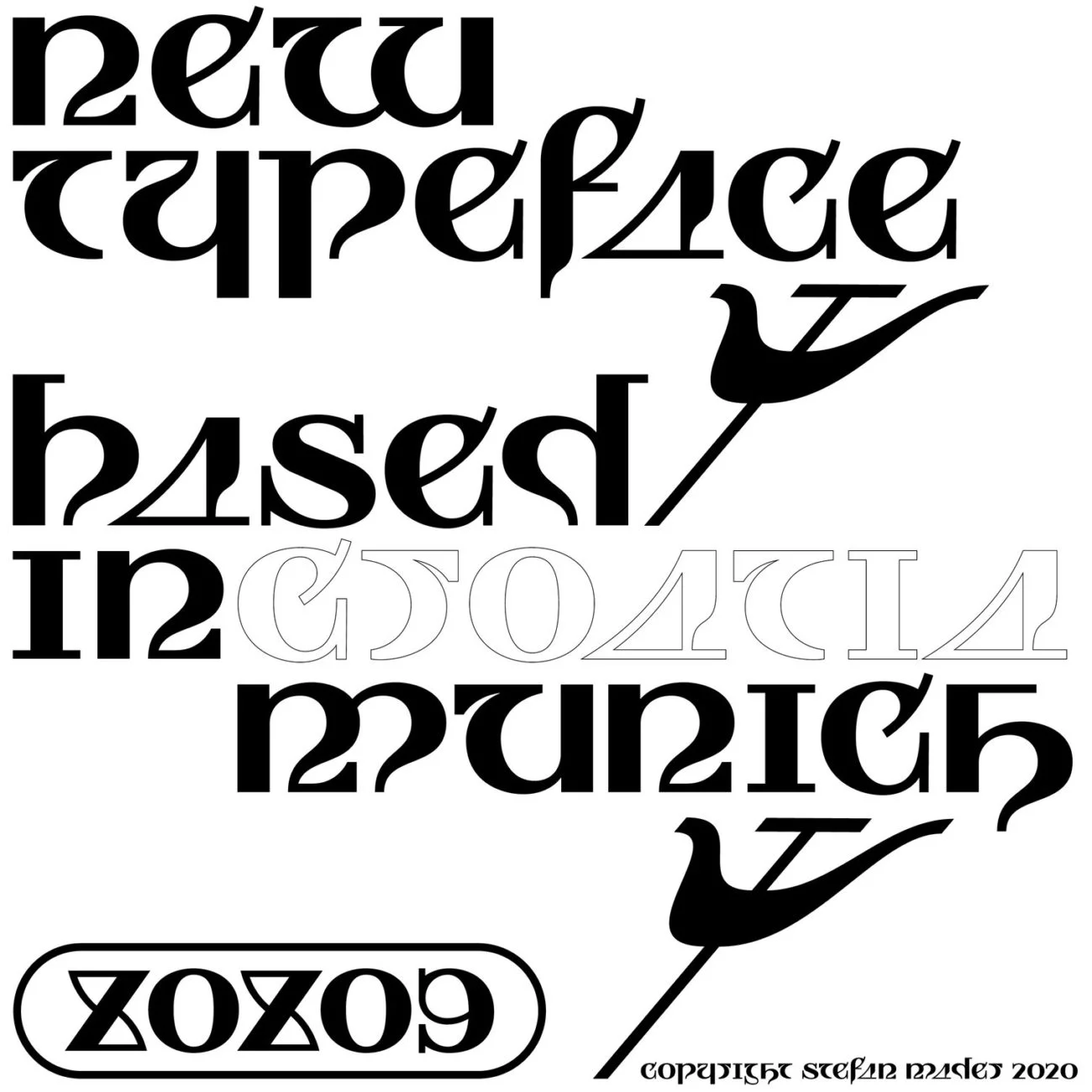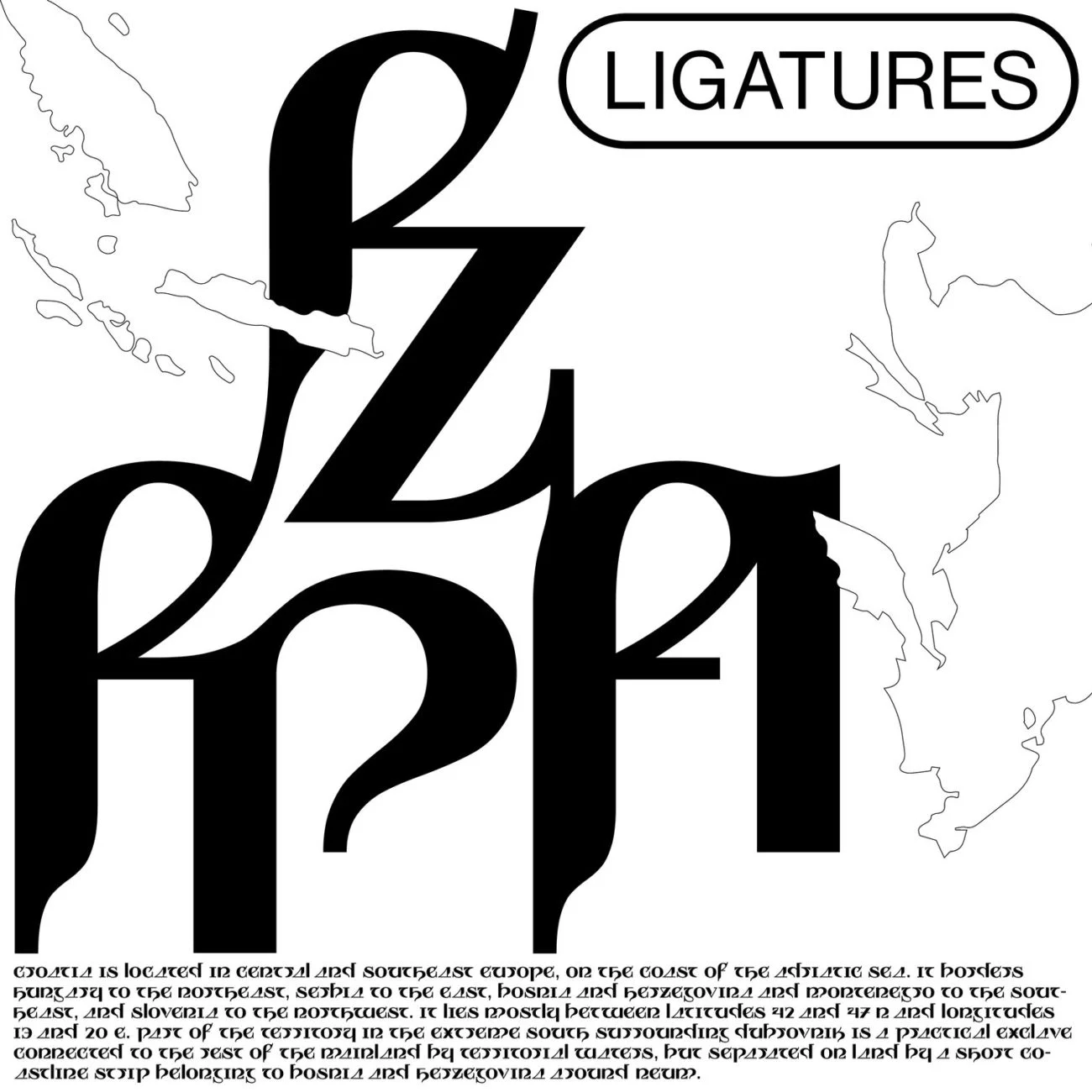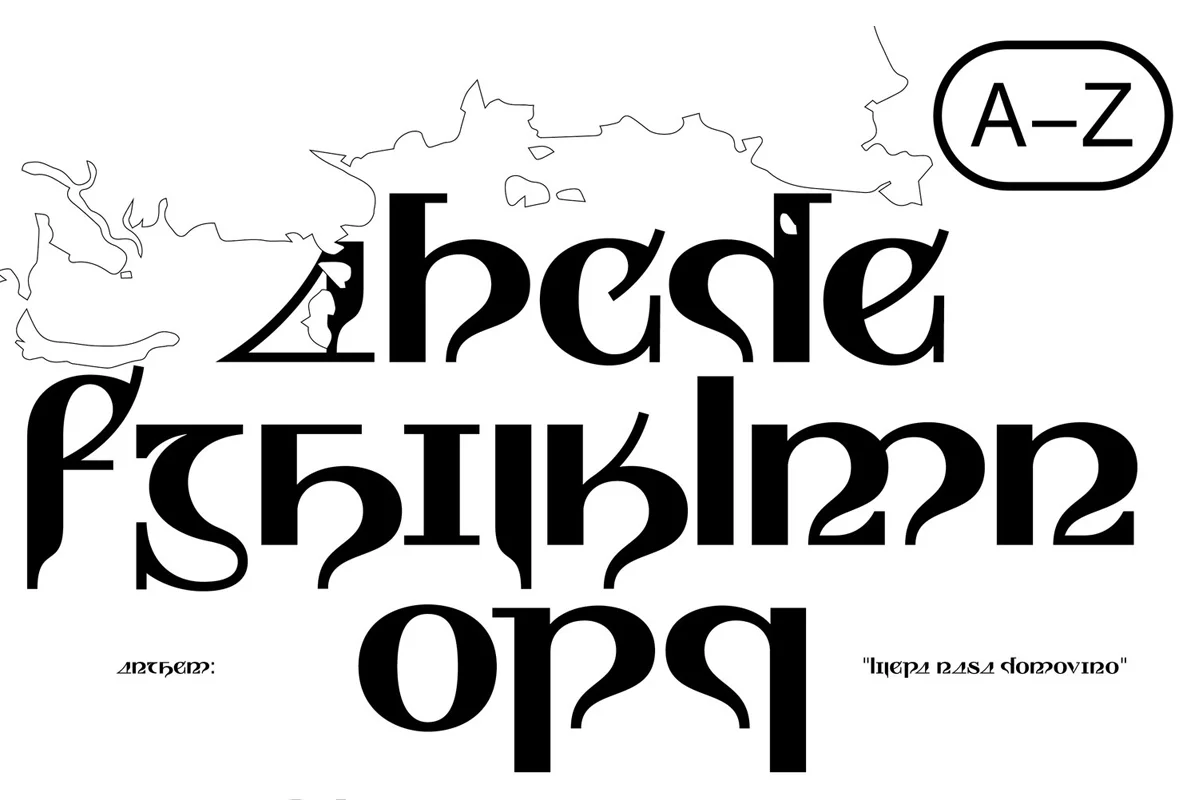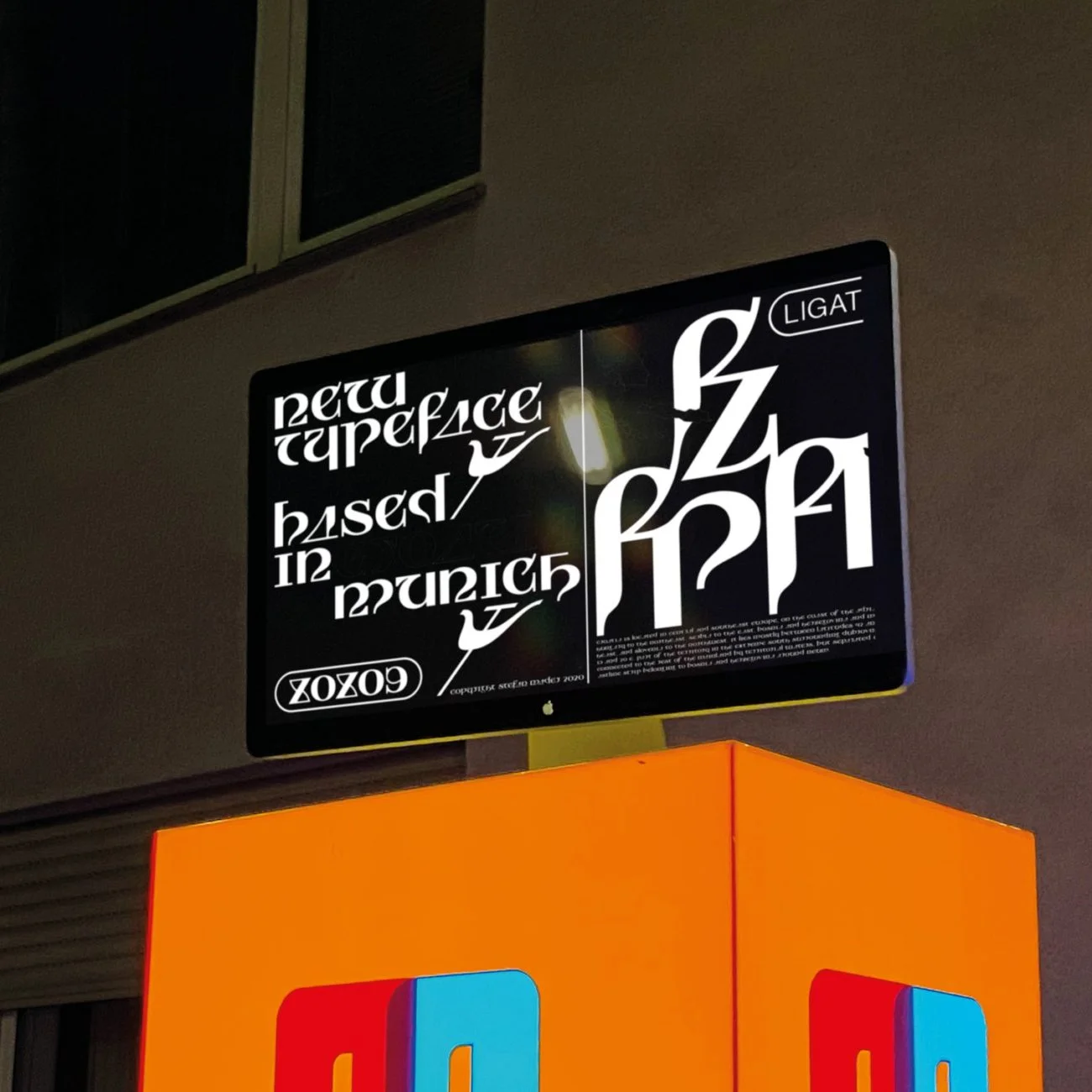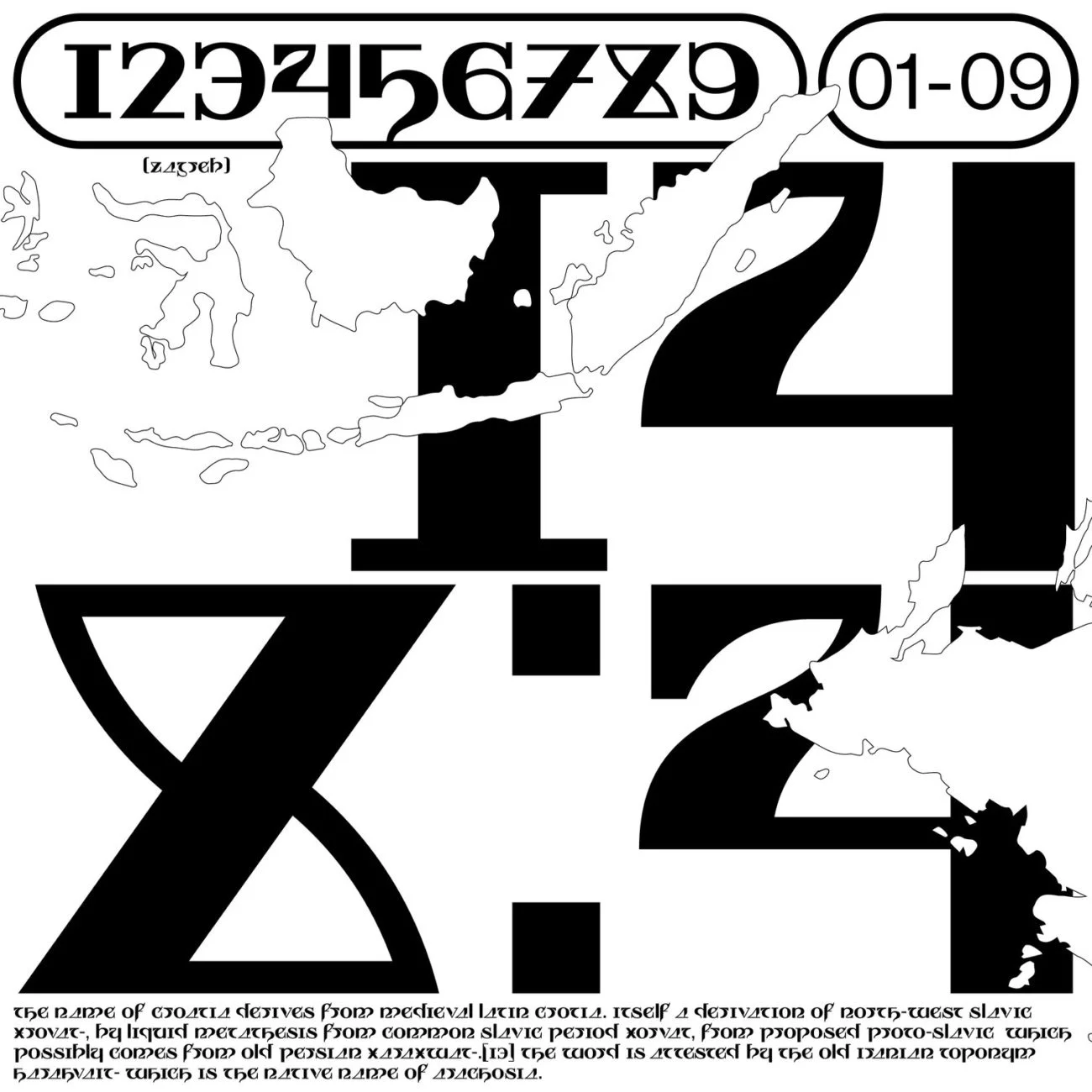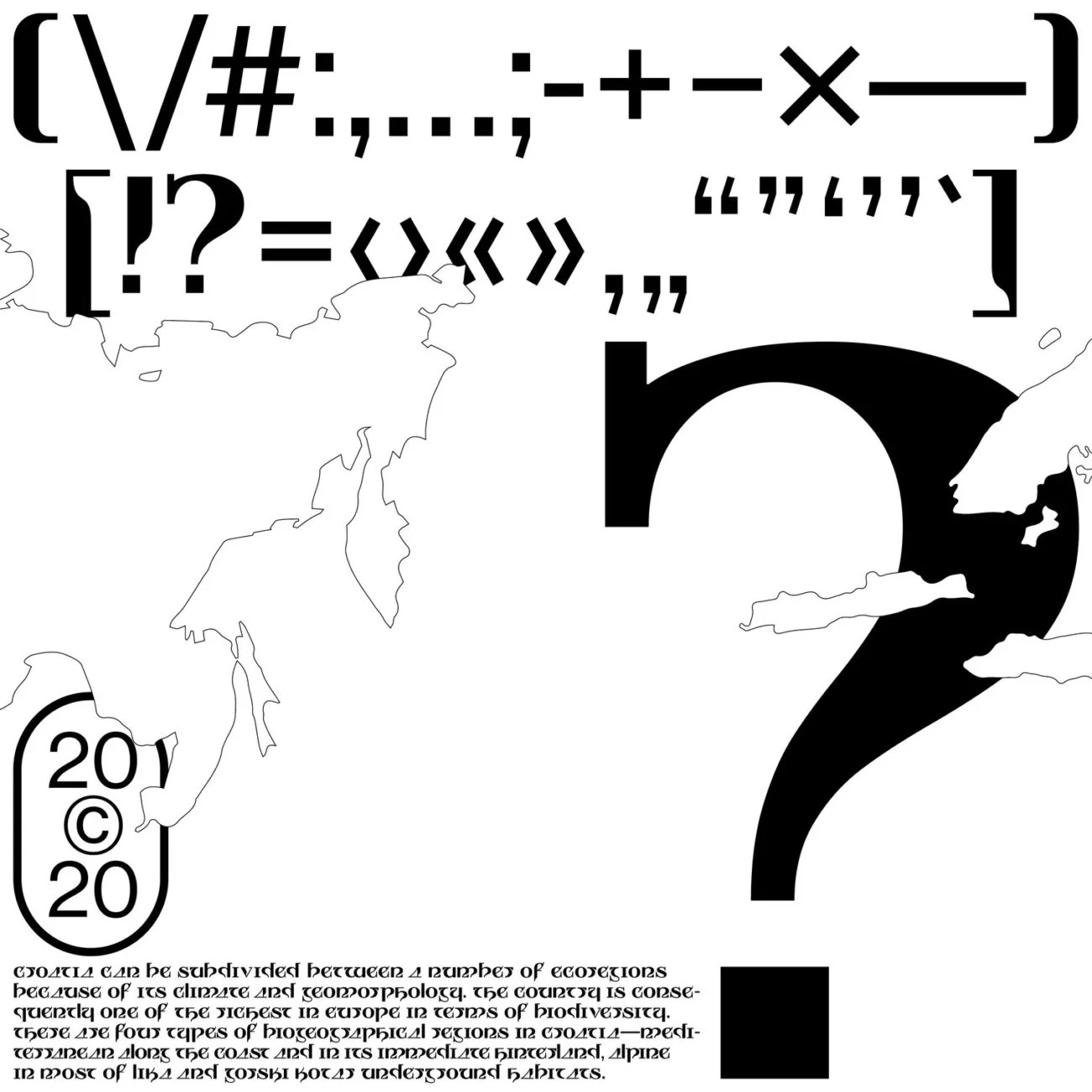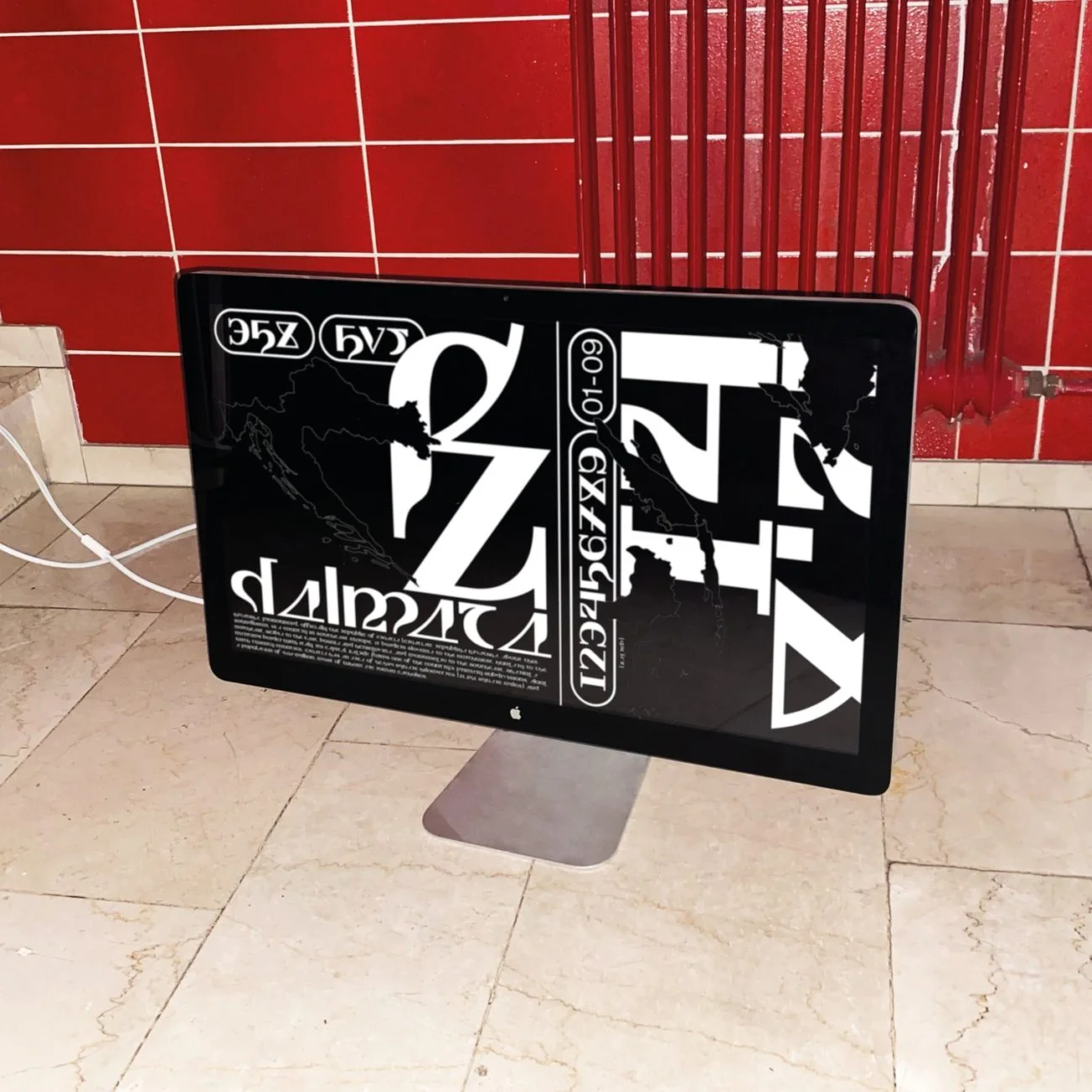
Dalmata Bold is an exquisitely unique and experimental display font from freelance graphic designer, Stefan Mader.
Distilled into its abstract, ambiguous and charismatic presence is a conceptual undercurrent which toys with intersecting ideas surrounding aesthetics, language, history and culture. Paying direct tribute to Dalmatia – a Southern region of Croatia and the namesake of the typeface – the unusual forms of the glyphs reference the brutalist-style war memorials called Spomeniks which are ever-present in the region.
‘The architecture usually appears strange, brutal, deterrent, but also playful, fragile and sensitive.’ The designer explains, ‘Dalmata picks up this contrast and makes use of these different stylistic elements and thereby acquires its very own, comical, but also cheerful character.’
Hypnotic and entrancing, Dalmata is drenched with juxtapositions; a visual expression of affection, positivity and optimism whilst bearing witness to a dark and difficult past.
Coming with 170 glyphs, including 15 special characters and 14 ligatures, this font would work beautifully for titling and large typographic works, and is also suited to some mid-length texts. And lastly, ‘Feel free to stretch, squeeze and twist the characters,’ the designer adds, ‘to make it even more fun and to make (hopefully) the world a better place.’